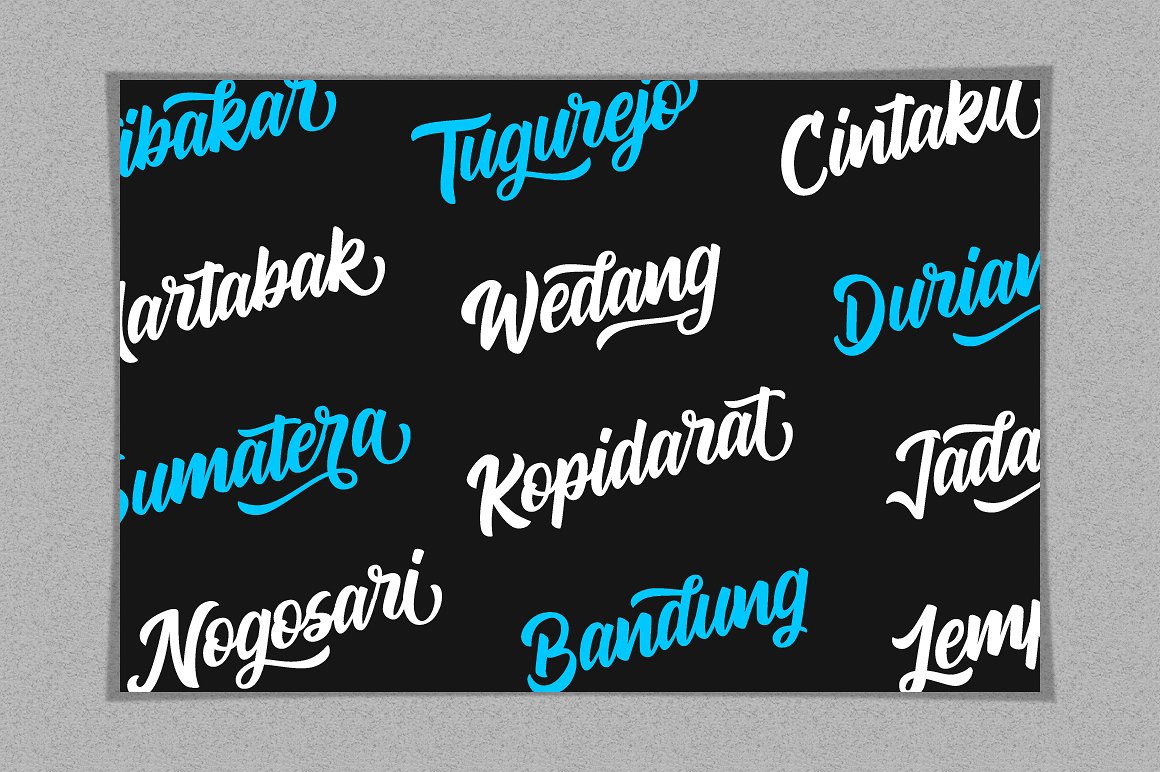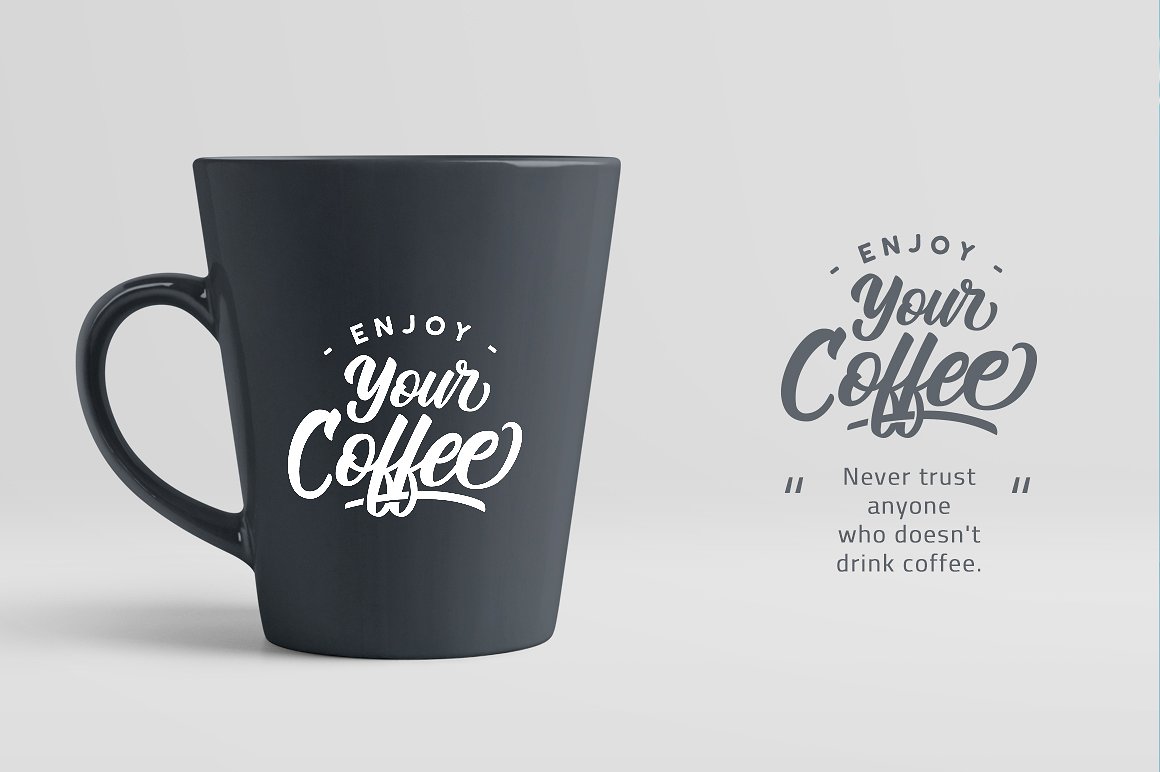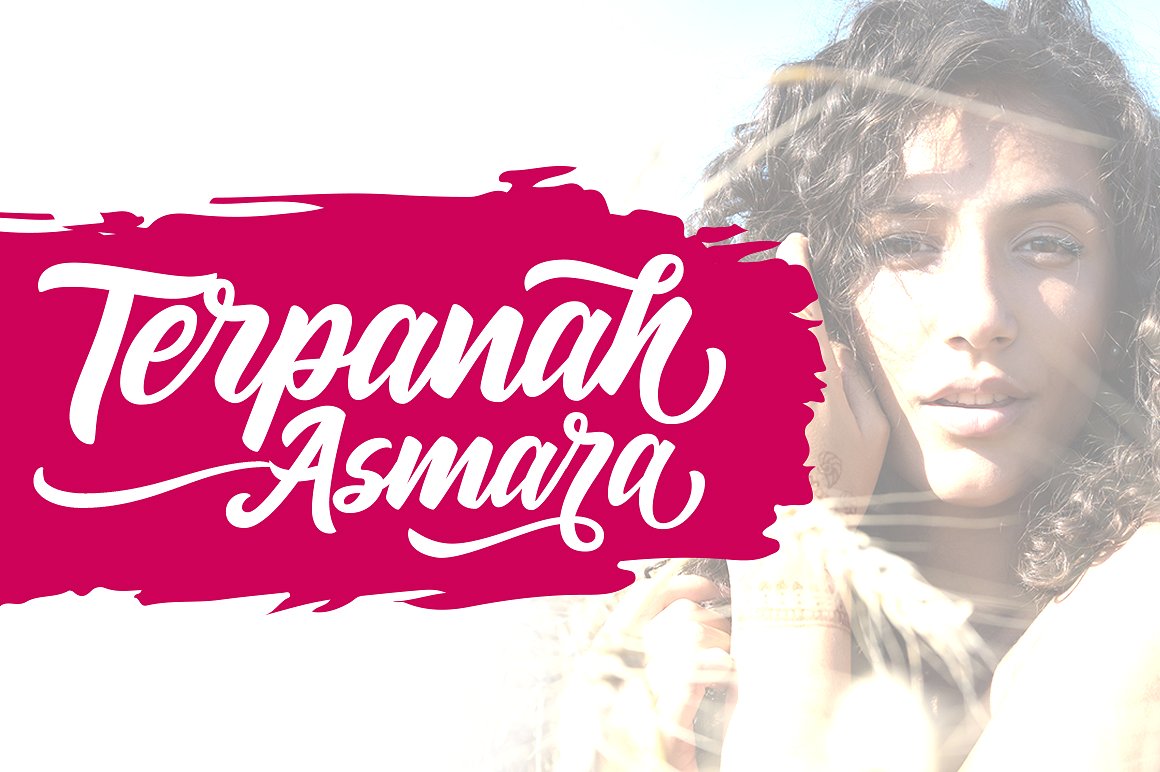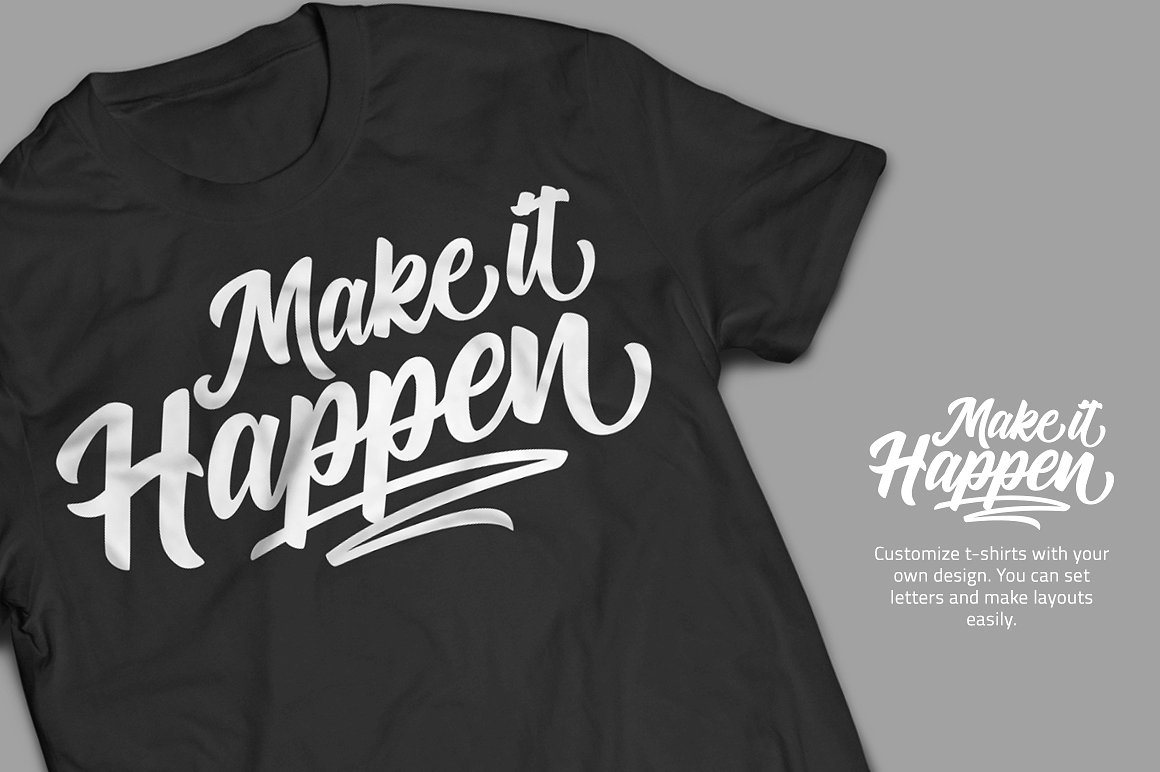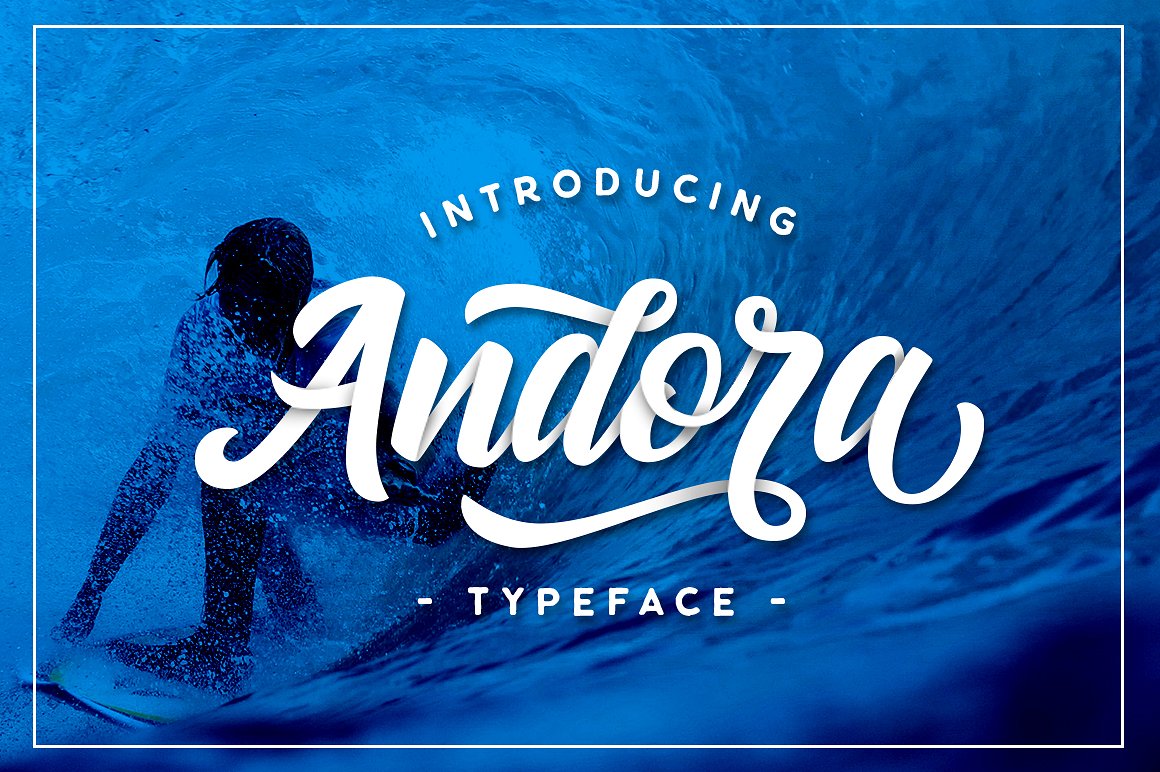
Andora Script Font
Invite you to enjoy a sweet calligraphy fonts. Add it to your fonts collection. Introducing Andora Font! It is was designed and shares by Weape Design. Andora – Hand lettered font with clean style and casual. Andora is perfect for branding projects, product packaging, tshirt design or simply as a stylish text overlay to any background image.